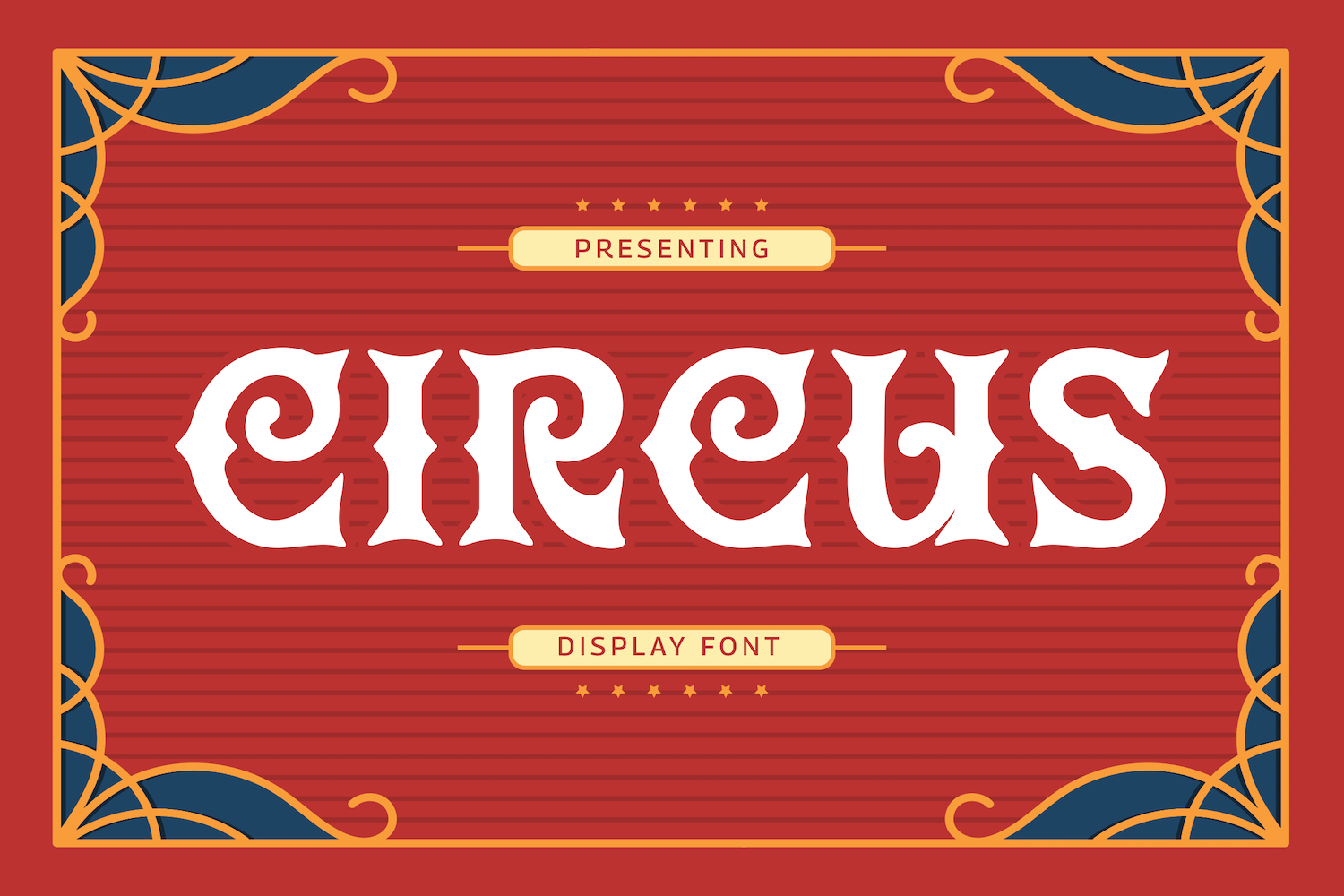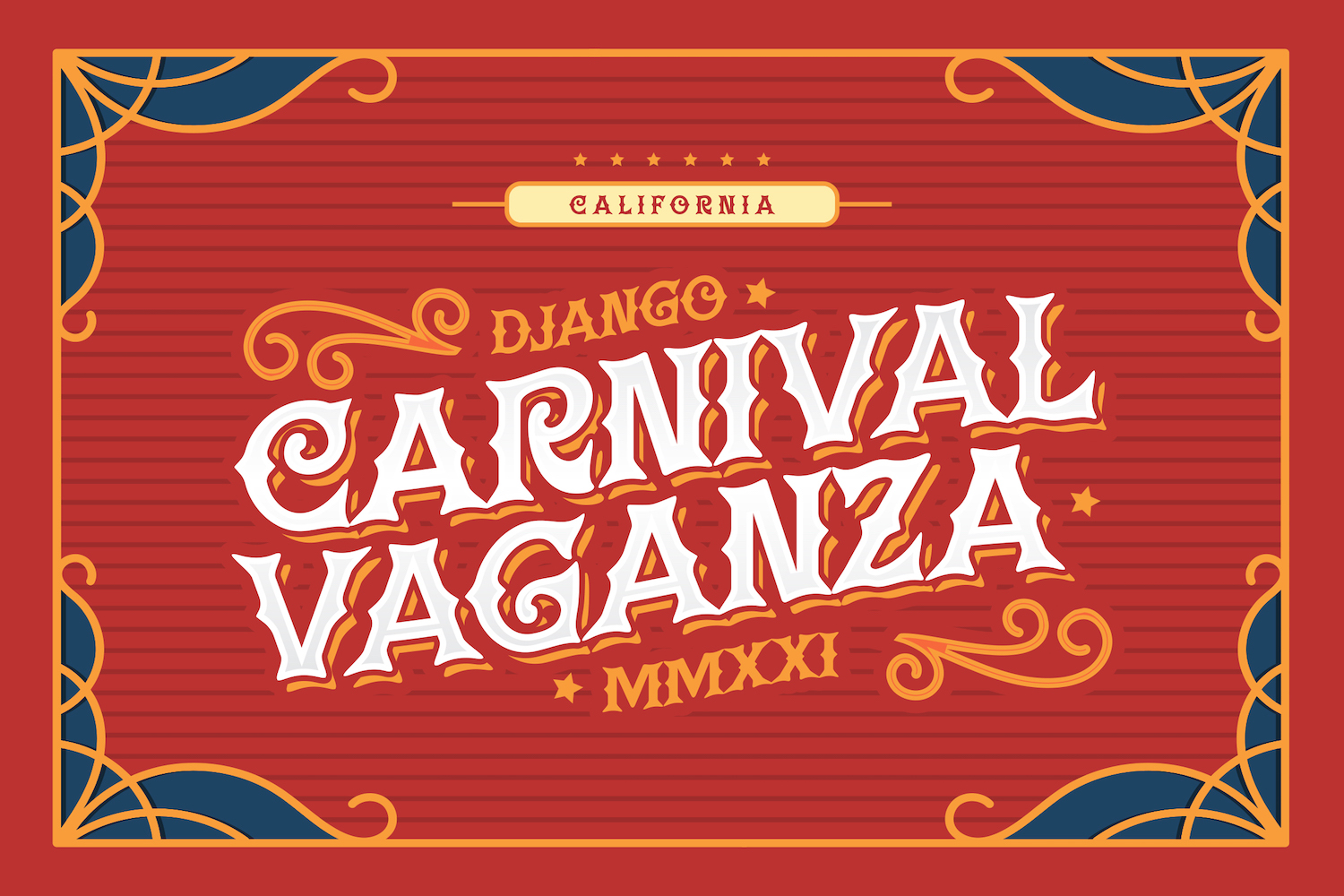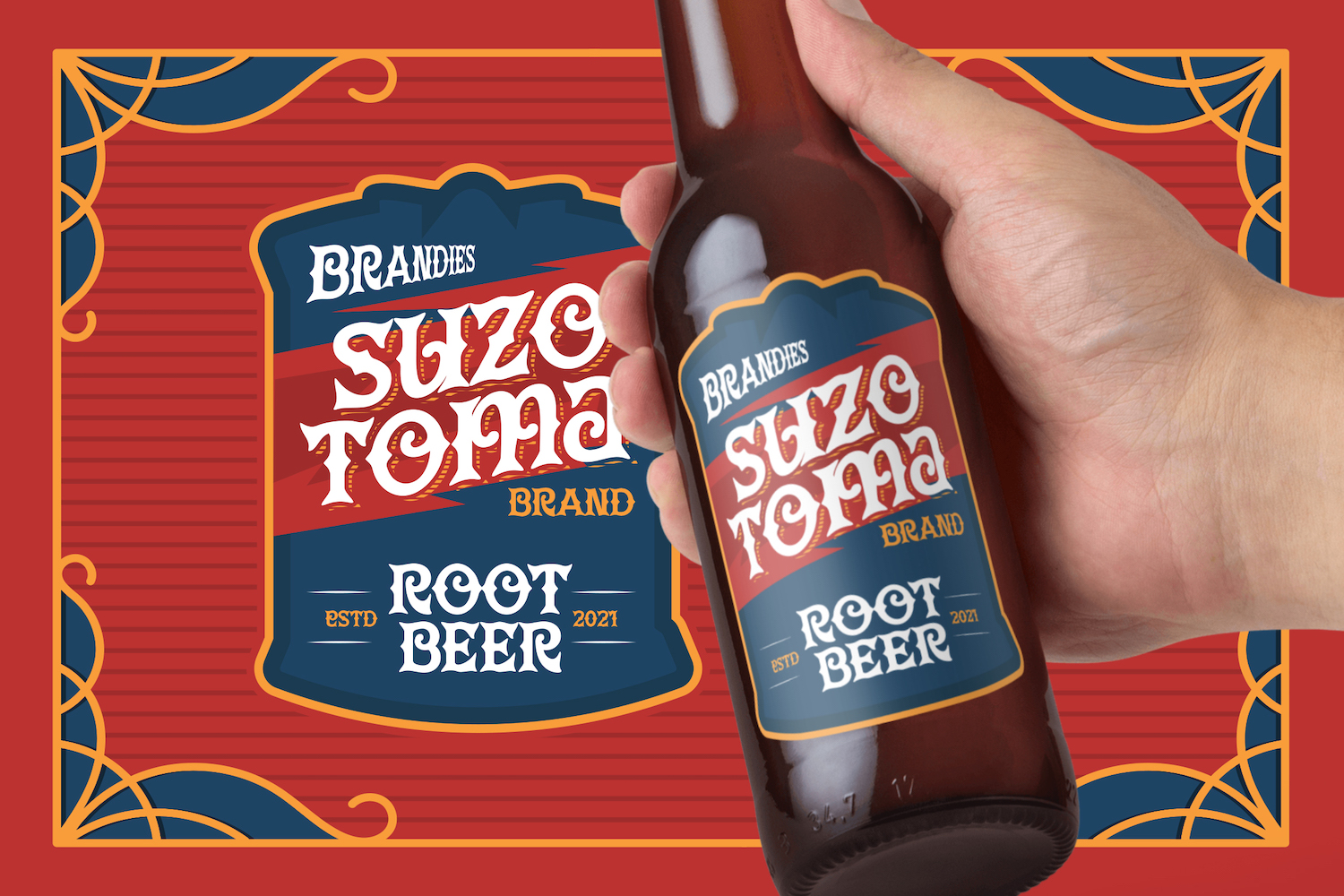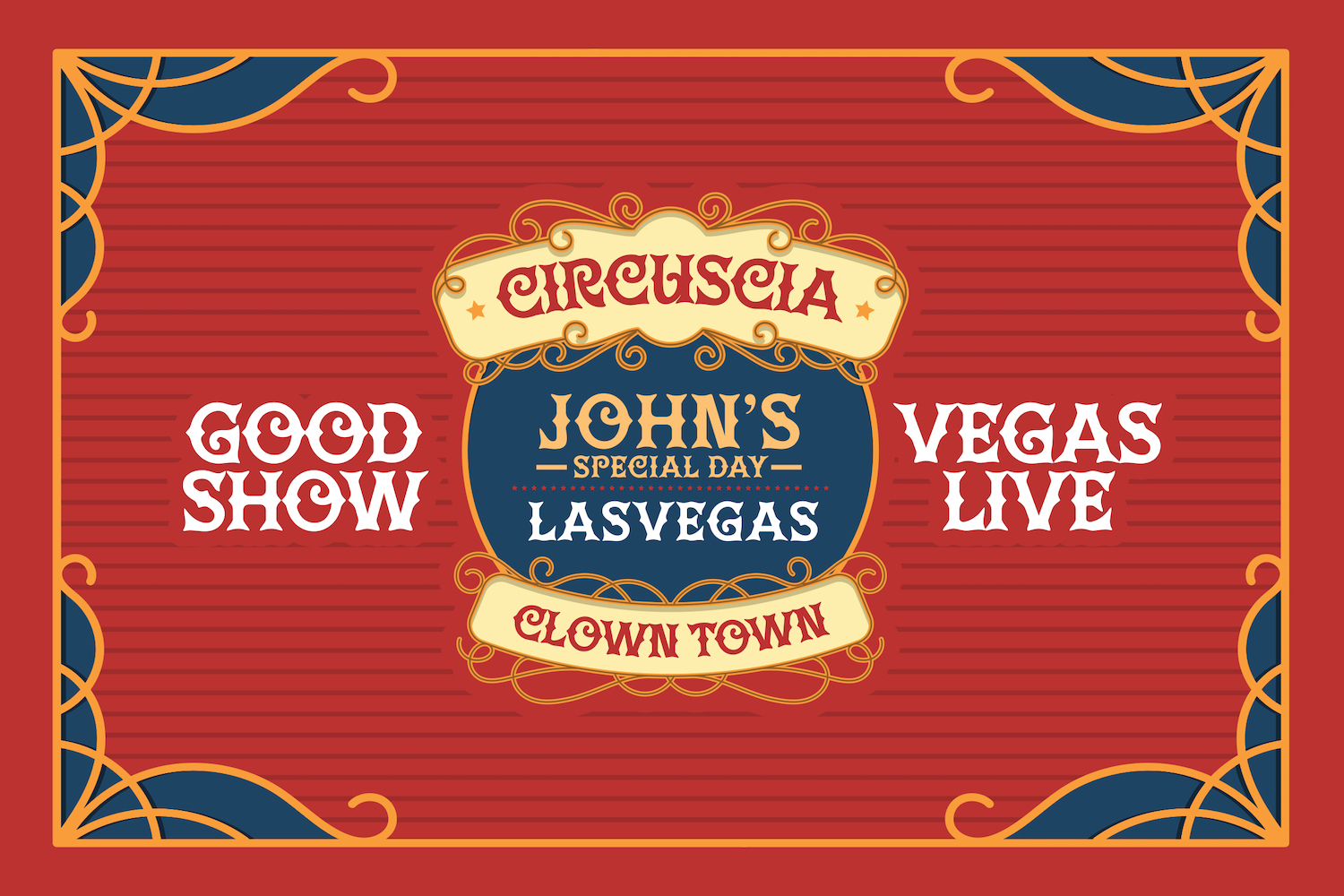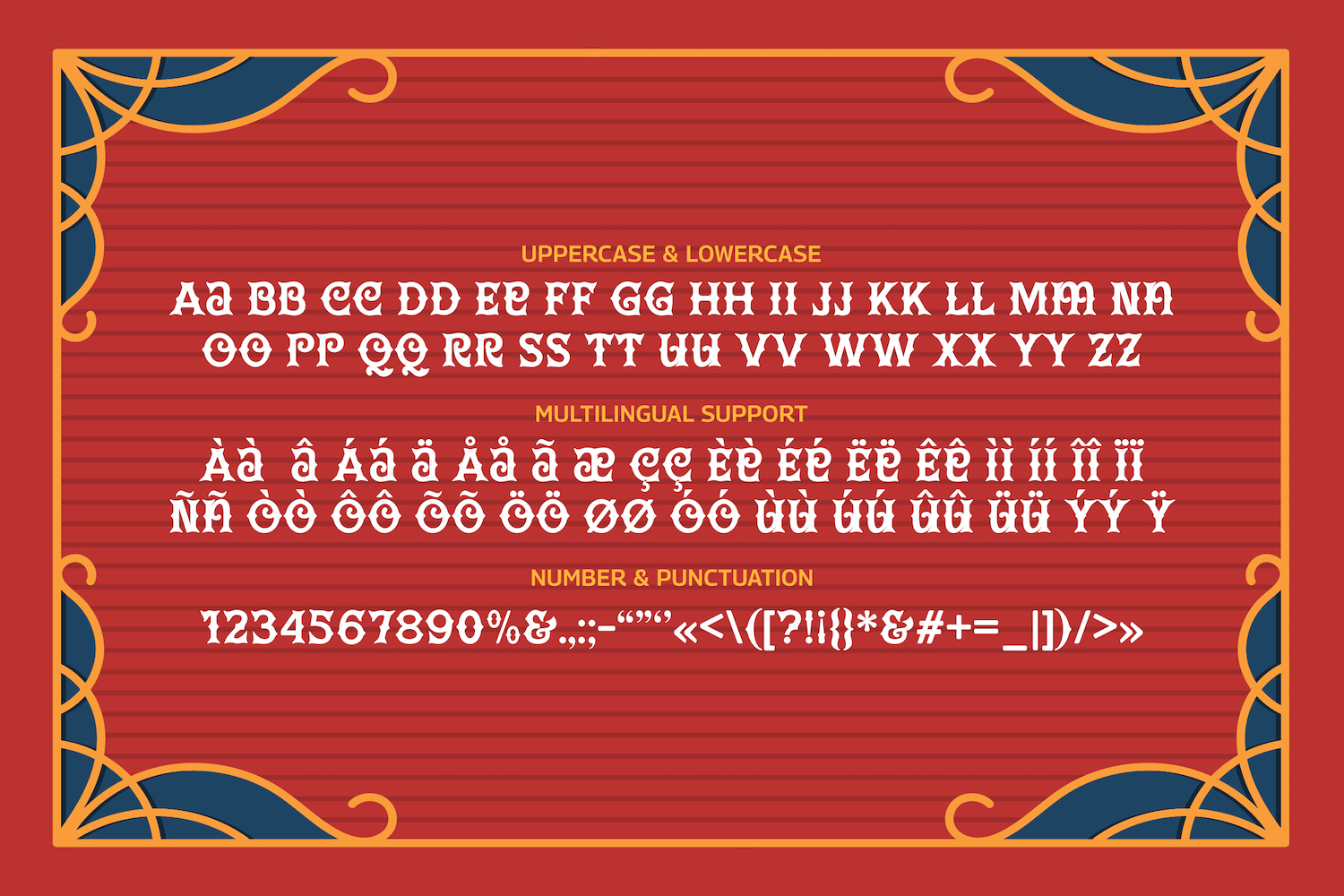
Circus is a fun and vibrant display font inspired by retro circus aesthetics. With its bold, high-contrast letterforms and quirky serif details, this font brings a lively and nostalgic atmosphere to any design. Perfect for carnival posters, signage, children’s branding, or vintage-themed packaging, Circus delivers strong visual impact with a playful twist.
Featuring uppercase and lowercase letters, multilingual support, and a wide range of punctuation, Circus is both decorative and functional. Whether you’re creating show titles, party invitations, or soda labels, this font adds theatrical charm and classic Americana spirit to every layout.